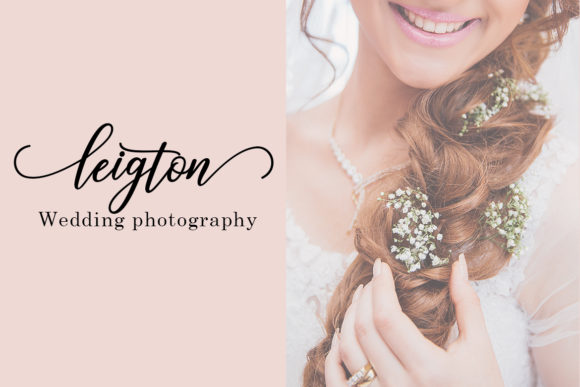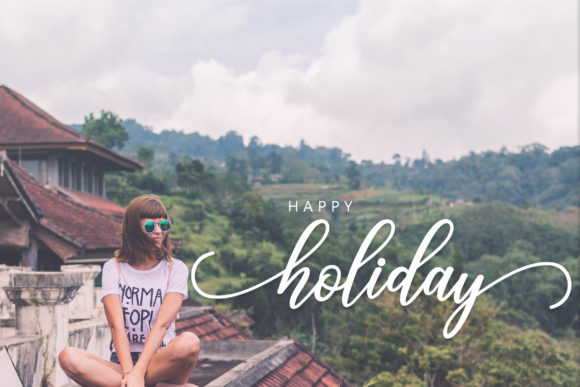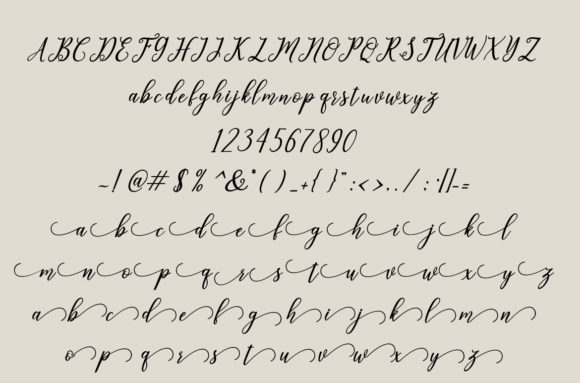
Leighton Font
About Leighton Font
Leighton is a beautiful and elegant font with a distinctly modern and contemporary twist. It will add a touch of sophistication to any design idea.